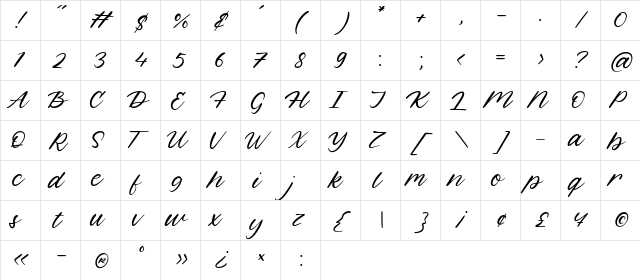
Hippotail Regular
Design Context for Hippotail Typeface
Hippotail is a composed and adaptable typeface that performs quietly and consistently across a wide range of design contexts.